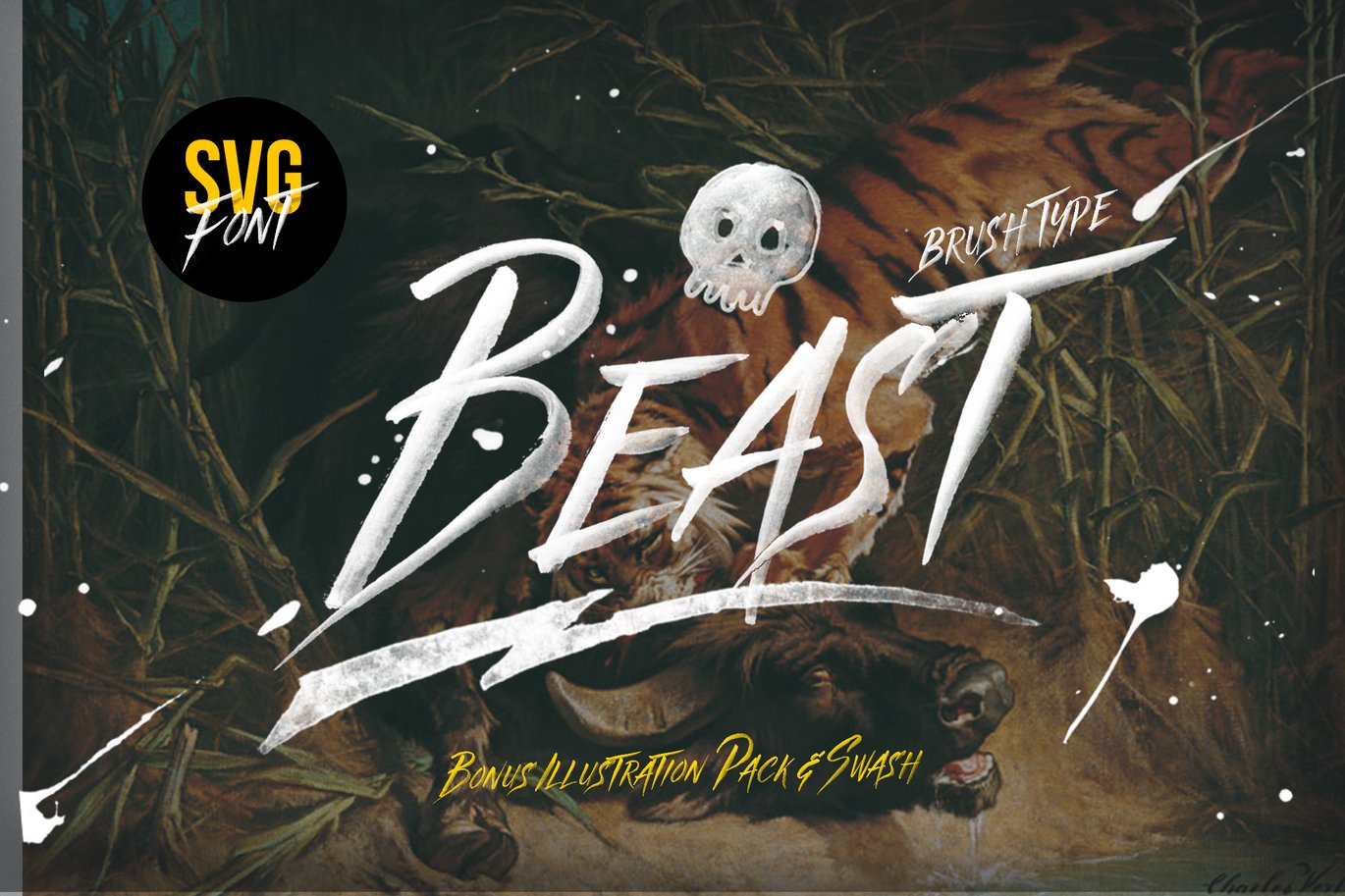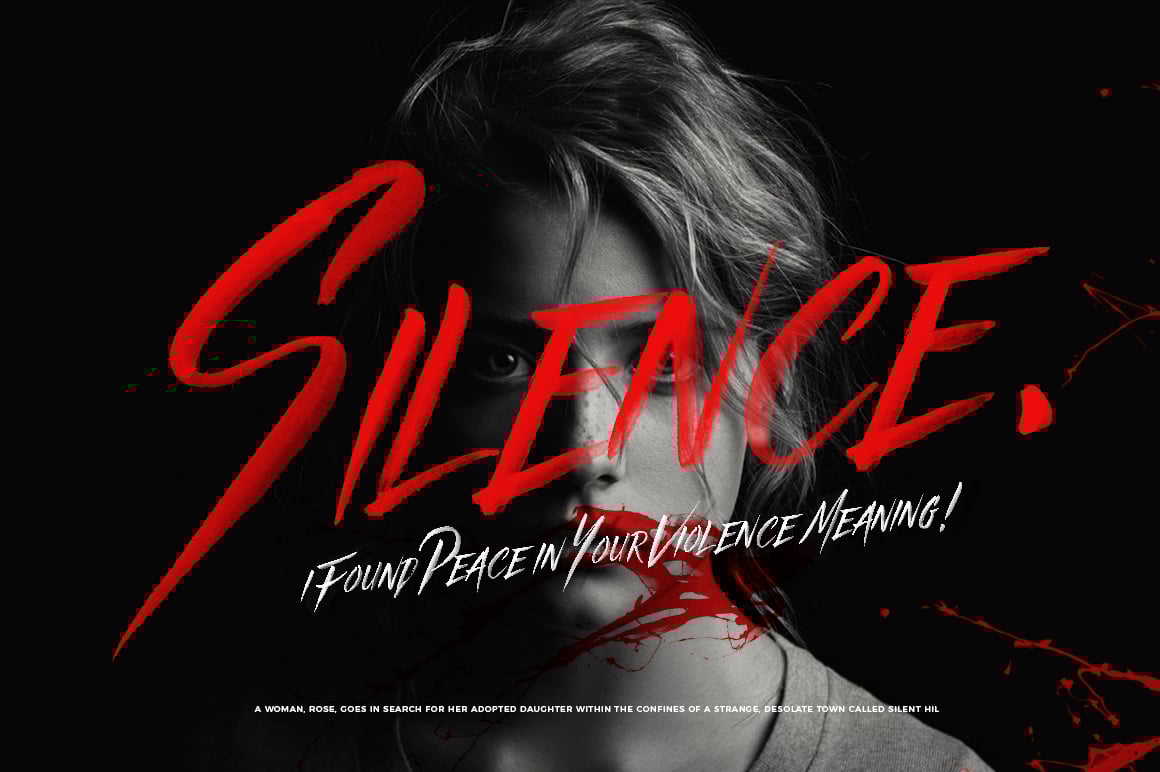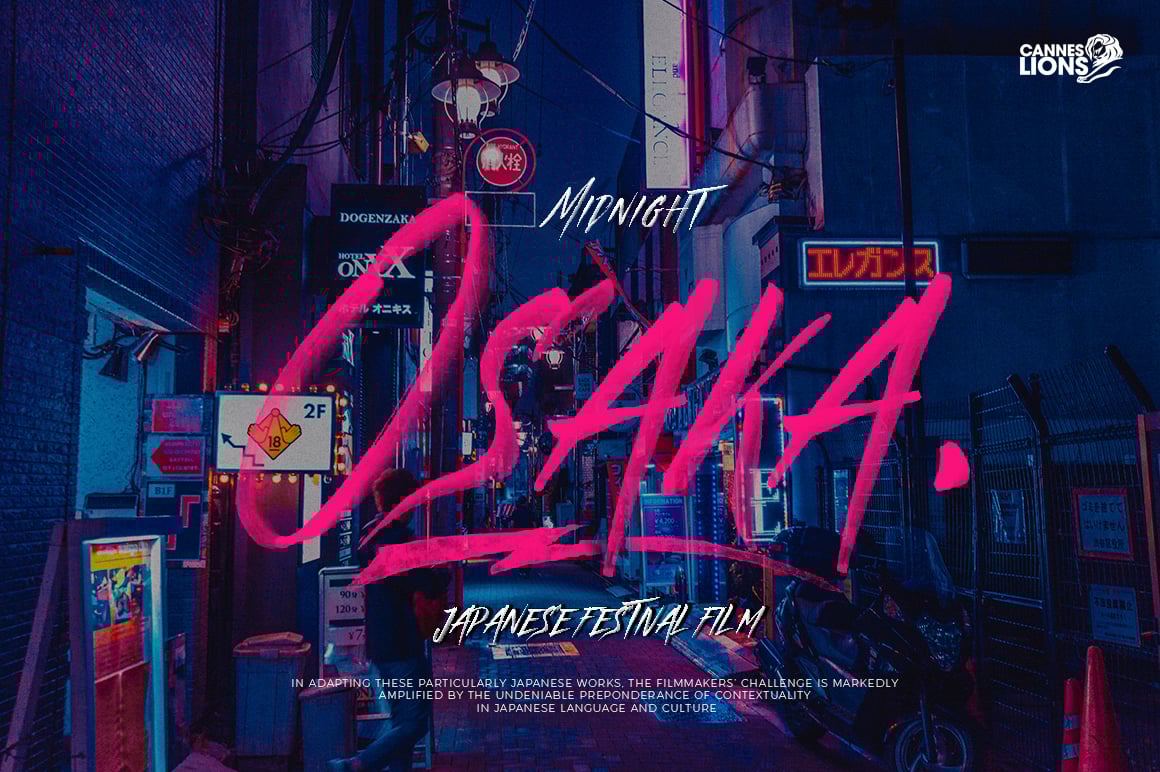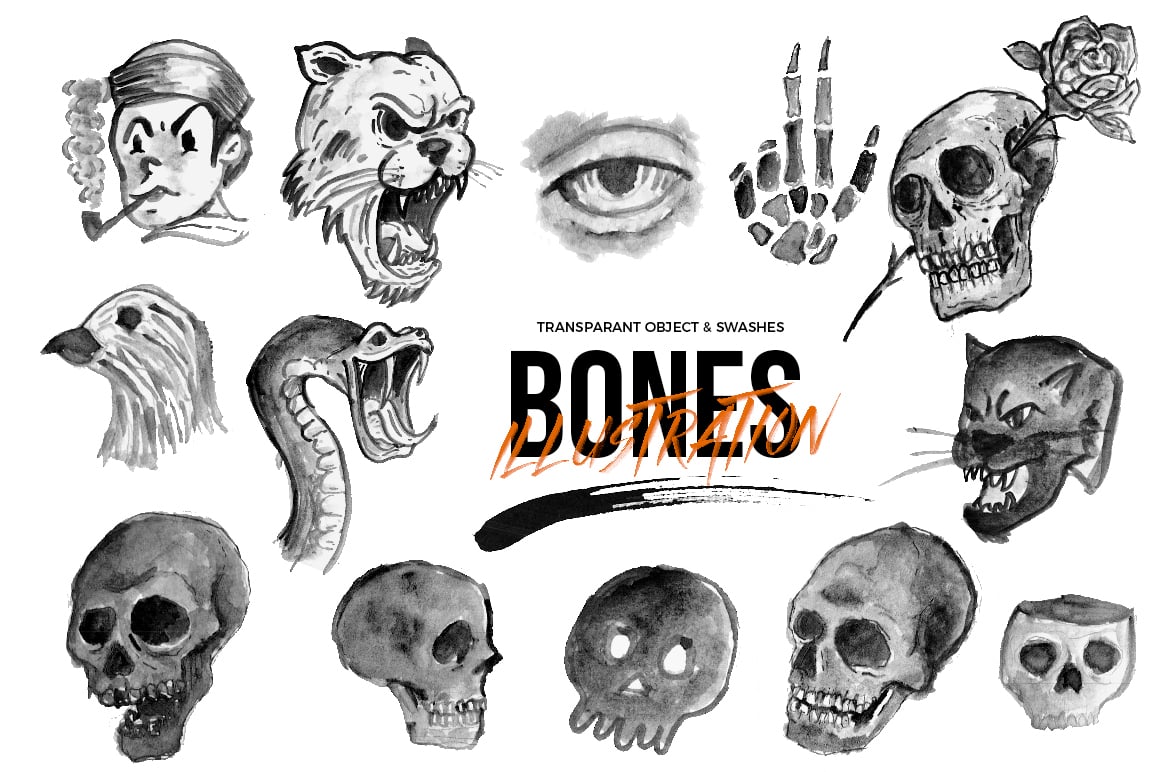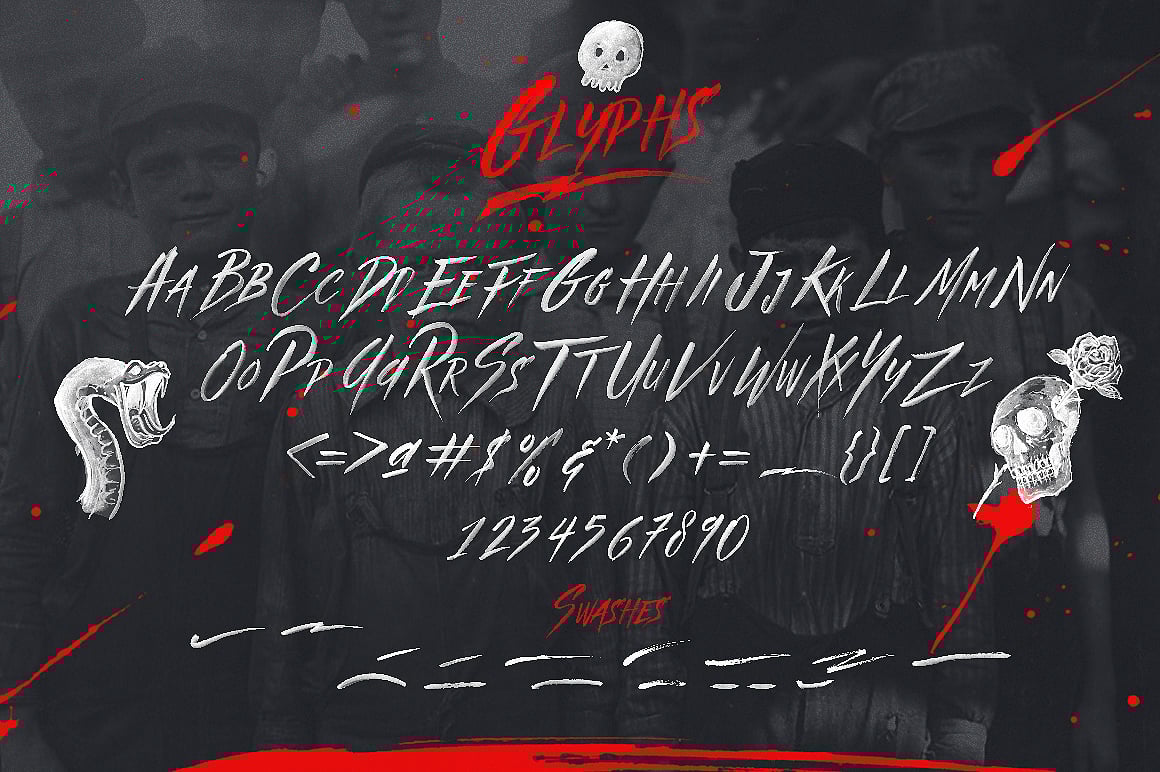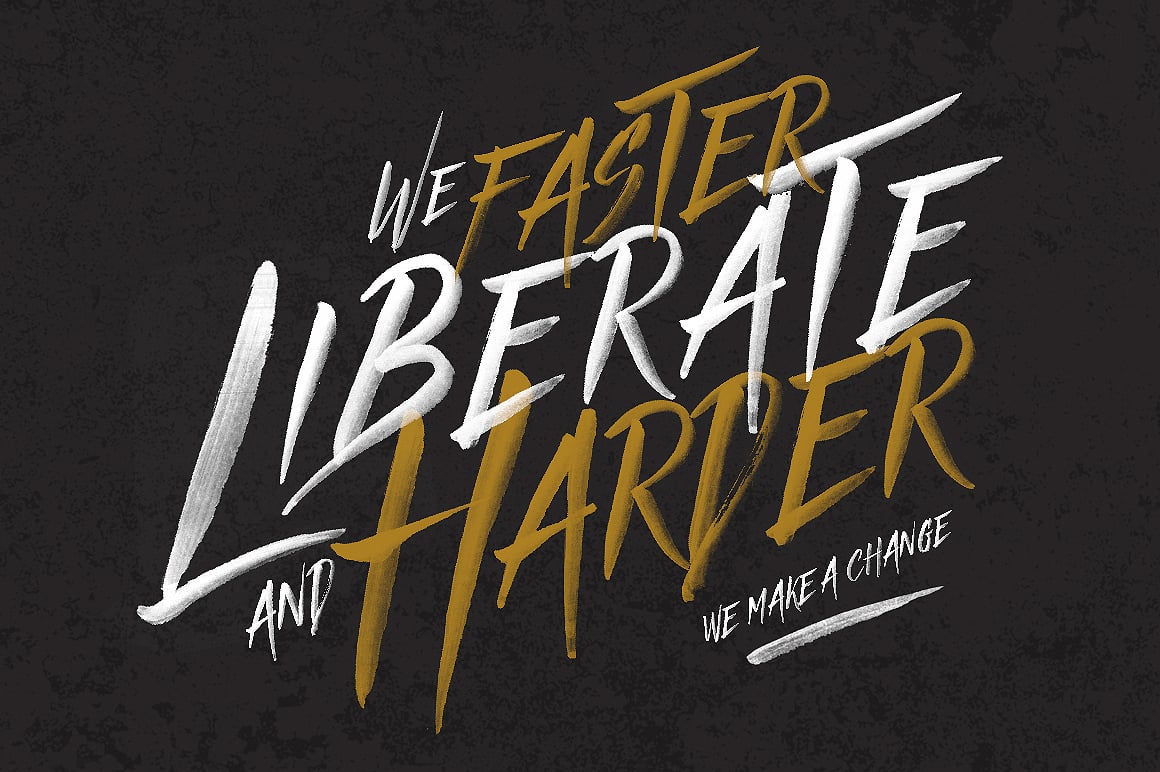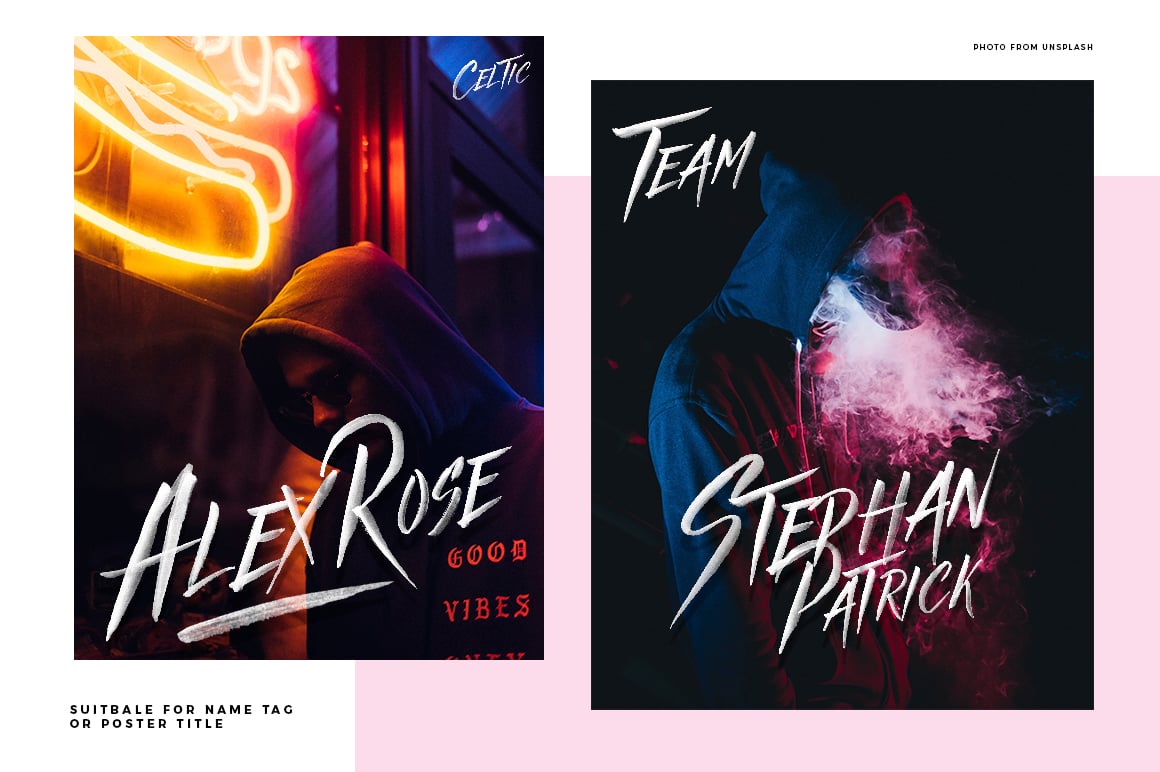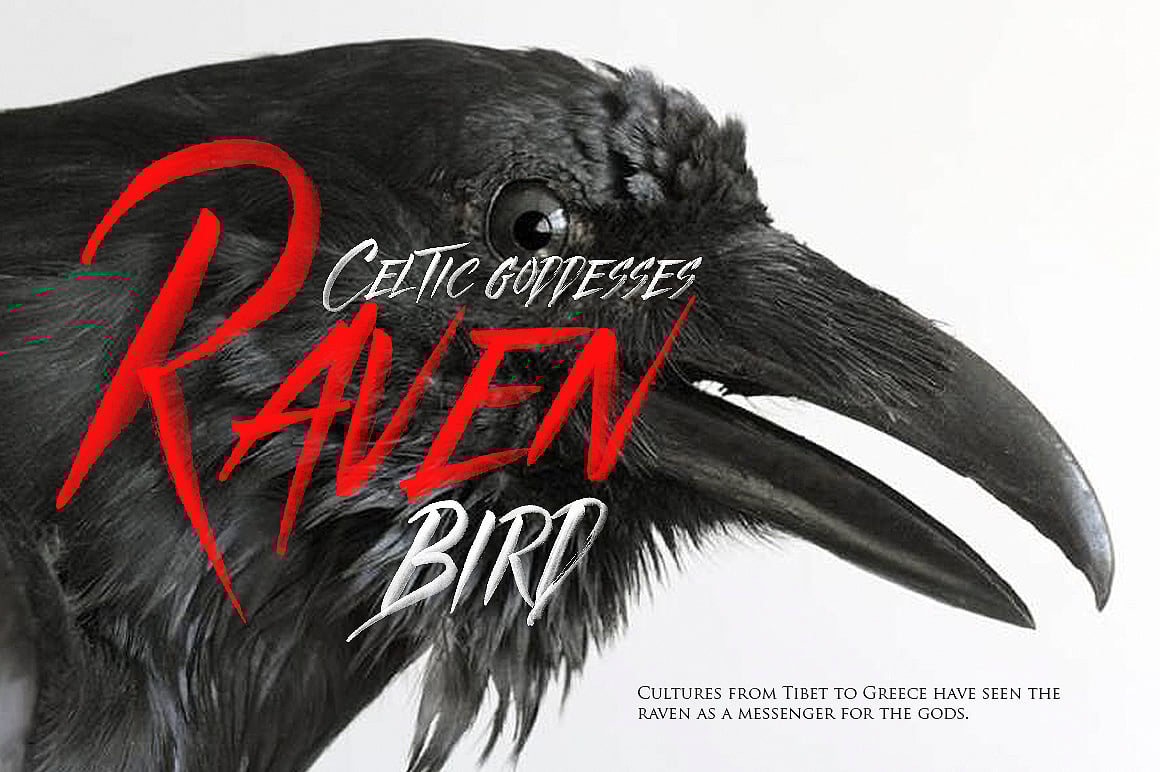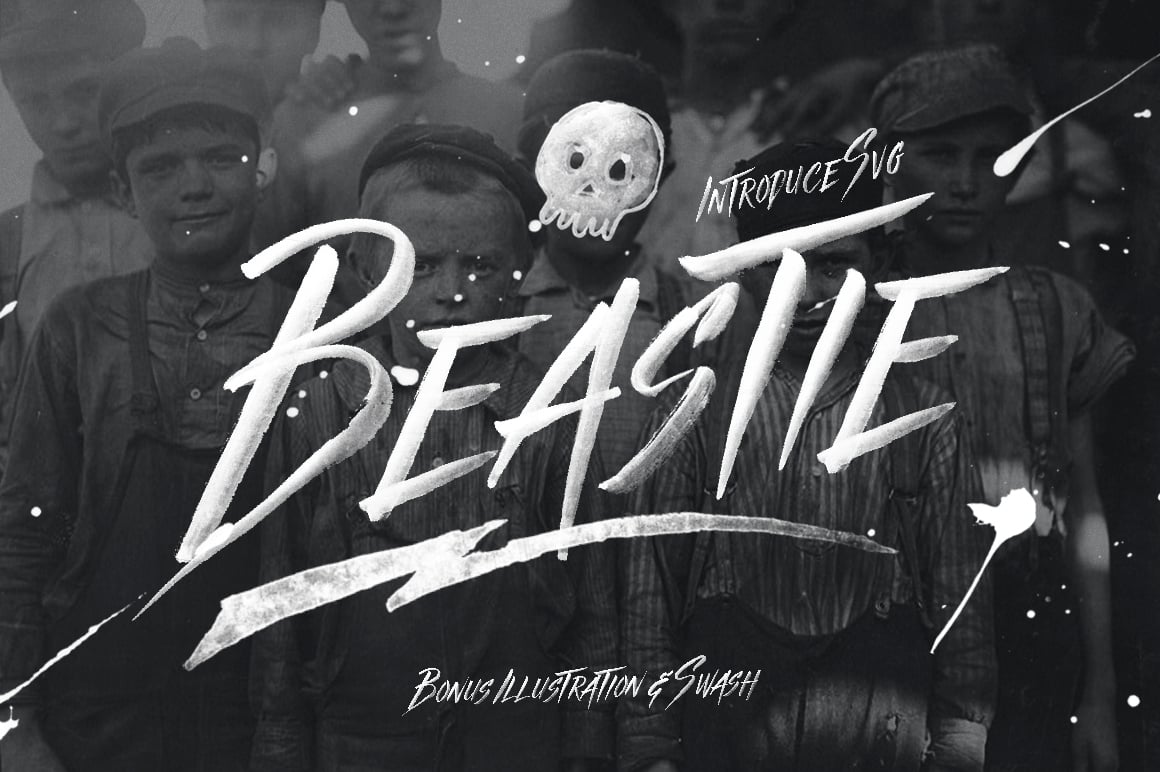
Beast SVG font & Graphics Pack
inspired from rebellion, stronge, power, & japanese ink, similiar with againts typeface, but this is very different, come with handmade Brush Texture style. The fonts are great for product logo, card logo, clothing brand logo, film title, name tag, poster and quote much more. Combined with graphics pack you can match into the design.
Start the fun, feel the different of style.